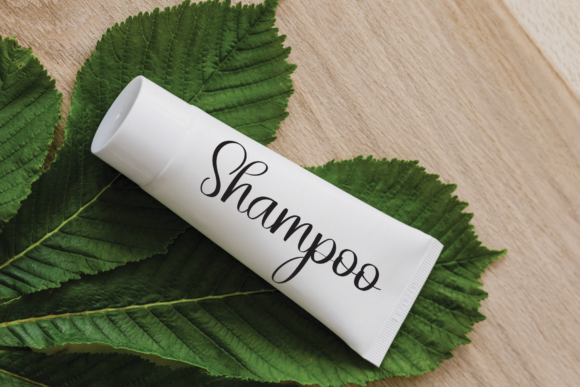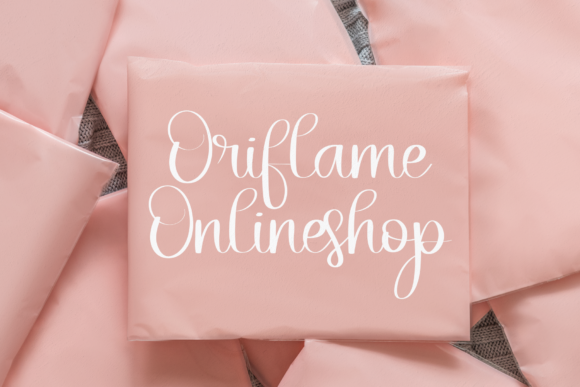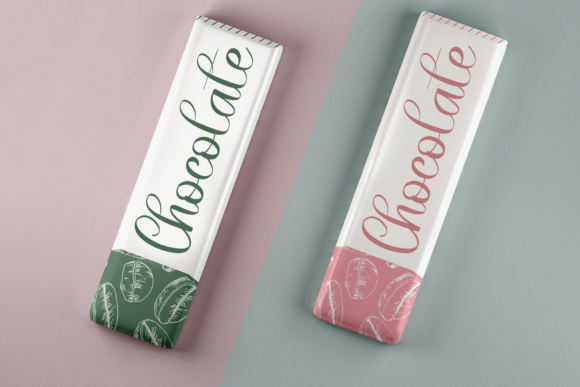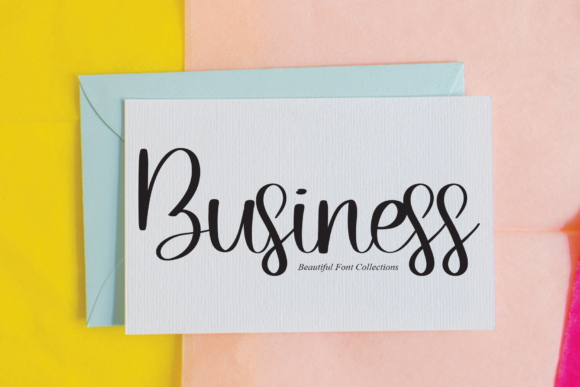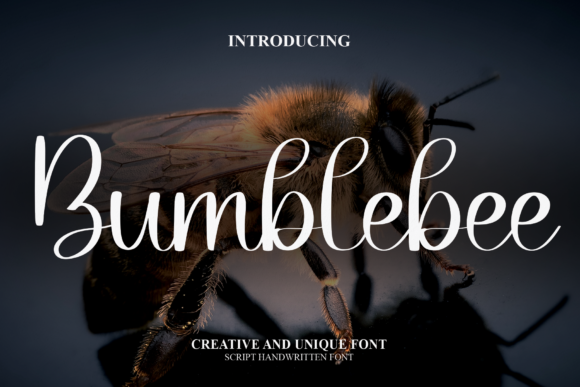
Bumblebee Font
Bumblebee is a delightful and meticulously crafted handwritten font that emanates a sense of sweetness and care. Every stroke and curve of this font has been thoughtfully designed to achieve the desired outcome, resulting in a font that is both visually appealing and versatile in its applications.
This font’s charming and warm appearance makes it an excellent choice for a wide variety of projects. Its handwritten style adds a personal touch to any design, making it perfect for creating various products tailored to specific needs. Whether you’re working on invitations, greeting cards, posters, labels, or any other creative project, Bumblebee has the ability to elevate your designs and make them stand out.
With Bumblebee, you have a font that can evoke a sense of warmth, approachability, and friendliness. Its carefully crafted characters give your text a unique and genuine feel, creating a connection with the audience. This font is designed to adapt seamlessly to different contexts and effectively communicate the intended message.
The versatility of Bumblebee extends to both digital and print media, ensuring that it performs well across various platforms. Its gentle curves and playful appearance make it a wonderful choice for projects that require a touch of whimsy and creativity.
Incorporating Bumblebee into your designs will enable you to achieve the expected results with a touch of authenticity and charm. Its ability to capture the essence of handwritten text while maintaining readability ensures that it adds value to a diverse range of creative endeavors.